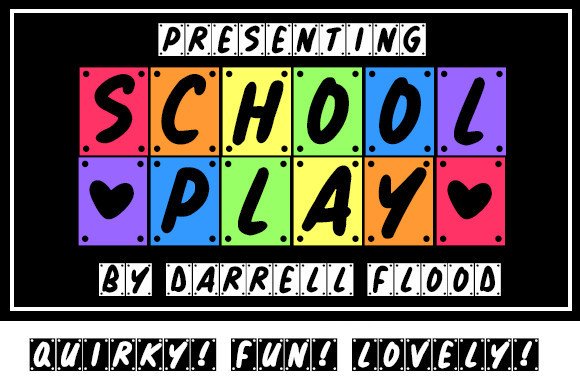
School Play Display Font
School Play Display Font is a fun, decorative font in a hand-drawn poster style. Perfect for classroom themes or special events!